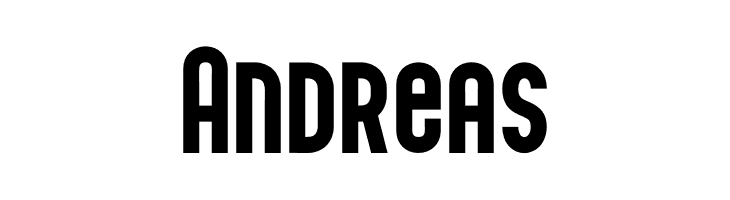
A bold, italicized font with dynamic and fluid strokes.
A bold, halftone-patterned font with a dynamic and playful style.
A bold, condensed, and italicized font with a dynamic and modern style.
A decorative font with characters resembling intricate tree branches.
A bold, textured font with a playful, handcrafted feel.
A bold, cracked texture font ideal for impactful designs.
A playful handwritten font with smooth, rounded edges and a casual style.
A bold, expressive handwritten font with a rough, textured style.
A modern, geometric font with a sleek, futuristic design.
A bold, impactful font with strong, thick strokes and slight serifs.
A three-dimensional, block-style decorative font with a textured, layered appearance.
A bold, distressed font with a woodcut print style, perfect for rustic or vintage designs.
A playful, bold font with rounded, thick strokes and a whimsical, casual style.
A playful, bold, and cartoonish font with a hand-drawn style.
A bold, modern decorative font with high contrast and narrow, impactful characters.
A bold, distressed font with a vintage, rugged appearance.
A decorative font with letters integrated into sailboat designs, perfect for nautical themes.
A playful, casual handwritten font with smooth curves and a friendly appearance.
A futuristic, angular font with sharp edges and geometric shapes.
A dynamic and elegant script font with flowing, cursive letterforms.
A whimsical, hand-drawn font with playful curves and decorative elements.
An ultra-thin, elongated font with a playful and modern aesthetic.
A lively, flowing script font with elegant, cursive letterforms.
An edgy, hand-drawn font with sharp, elongated strokes and a distressed texture.
A modern sans-serif font with clean lines and a professional appearance.
A bold, dynamic font with a slight slant, perfect for energetic designs.
A bold, artistic handwritten font with expressive brush-like strokes.